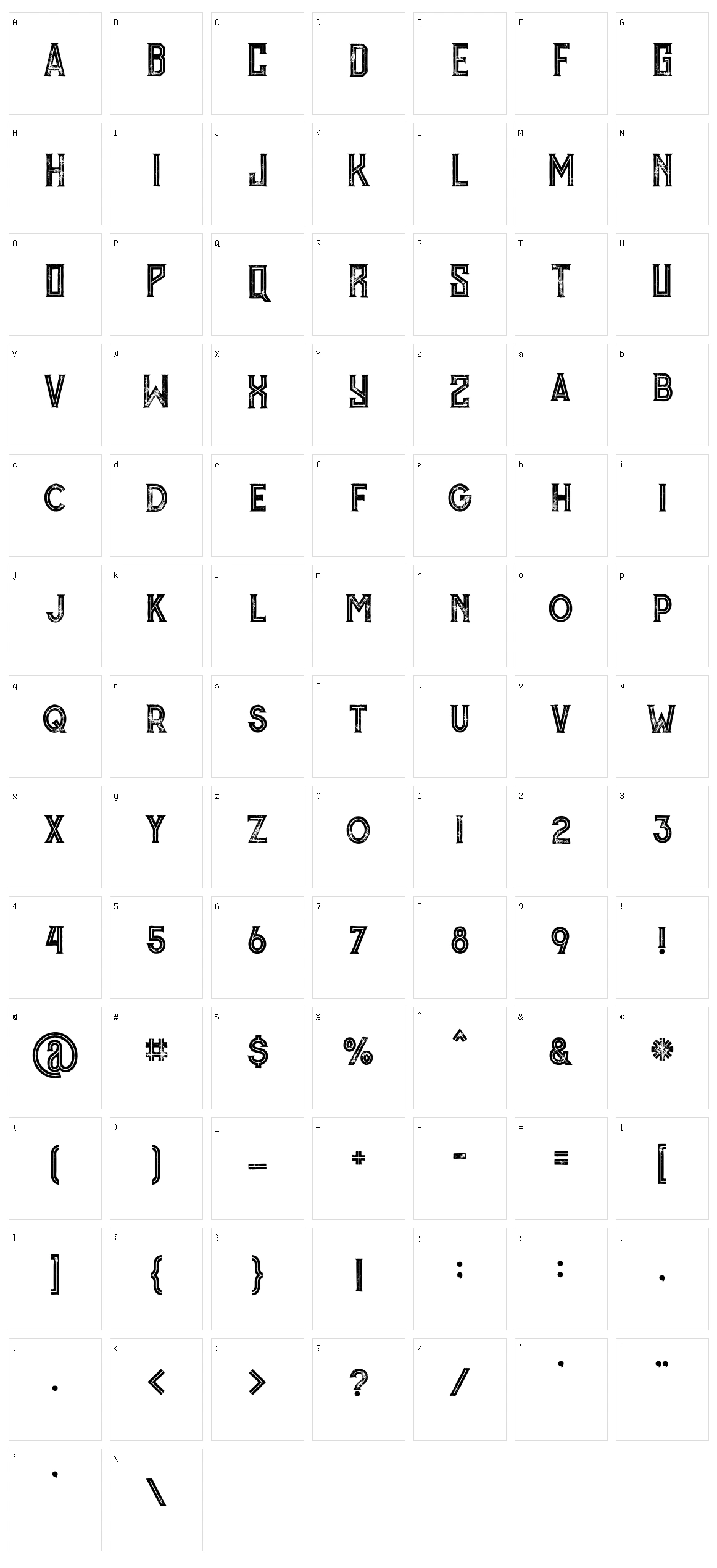
The free font Murray is carefully designed by Peter Olexa, showcasing a thoughtful balance of creativity and usability and falls under the Eroded font style. When you download the ZIP file, it contains only 879.05 KB of font files, making it lightweight and quick to download. Please review the license details below to understand permitted usage and distribution rights. If license information is not available, we recommend using this font for personal projects only or contacting the author directly for commercial usage permissions.
Murray Inline Grunge